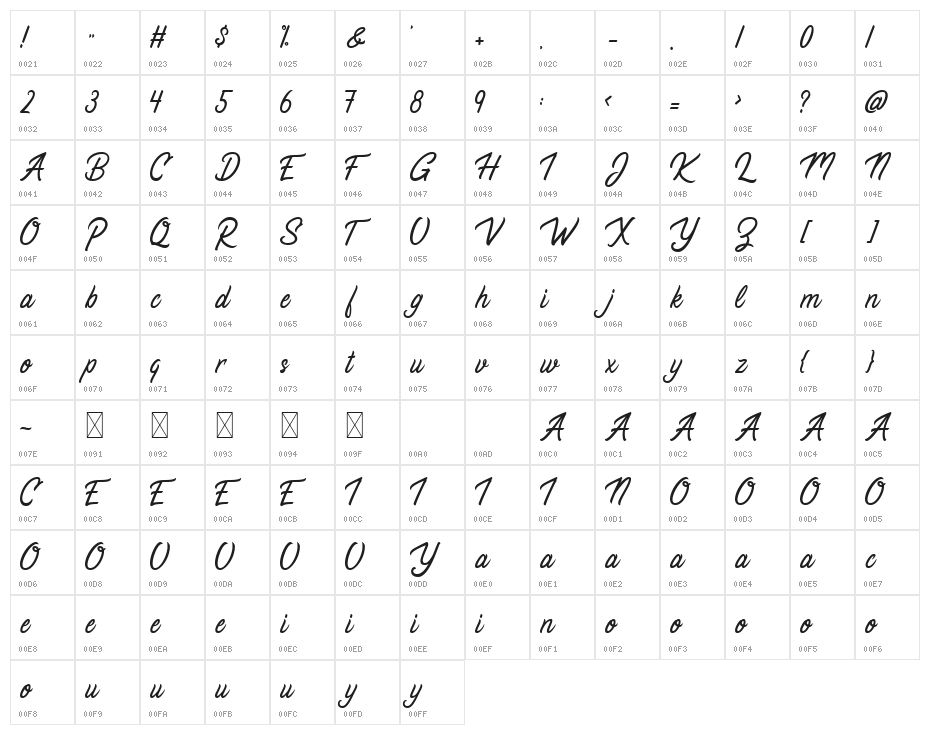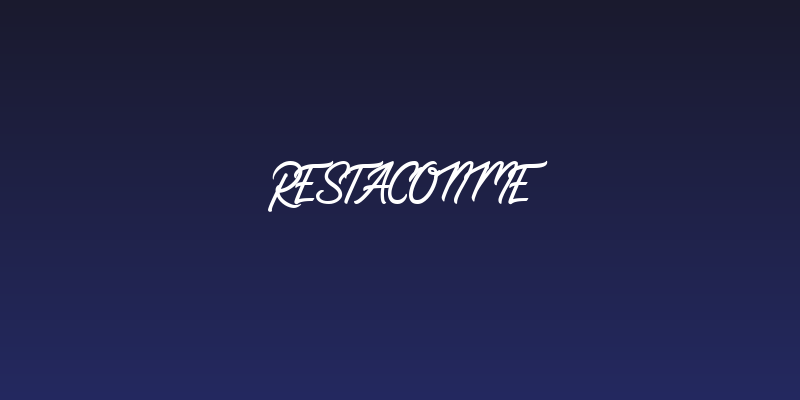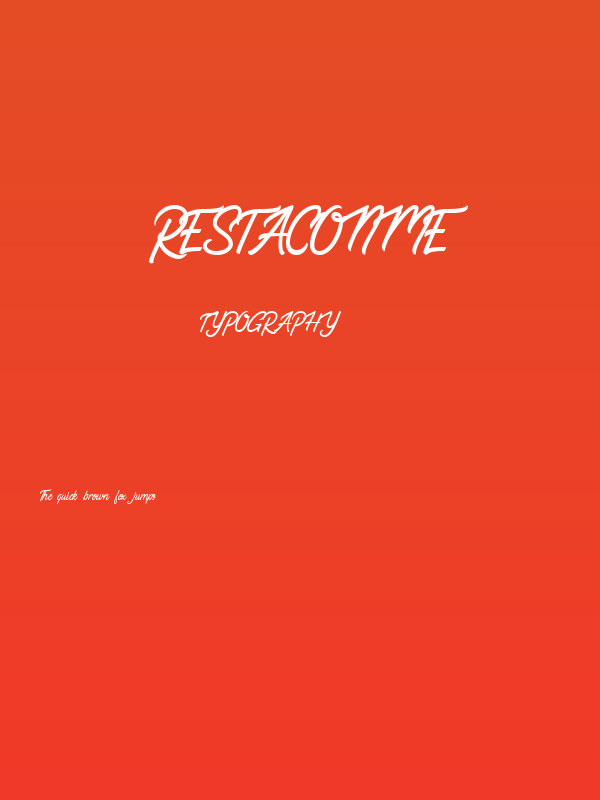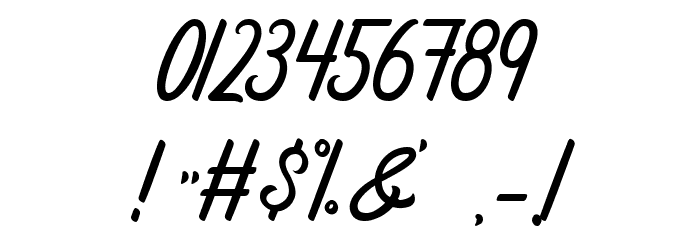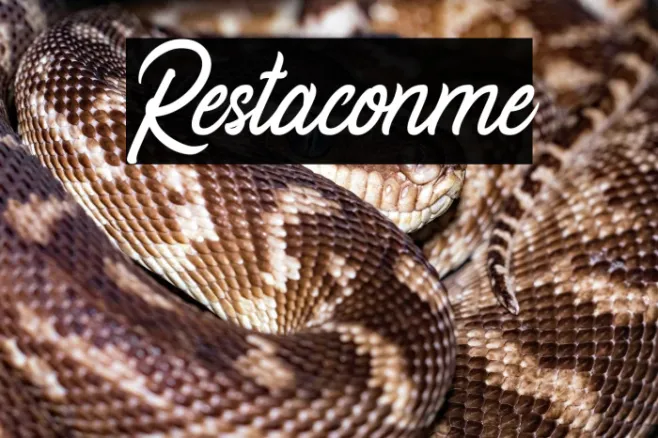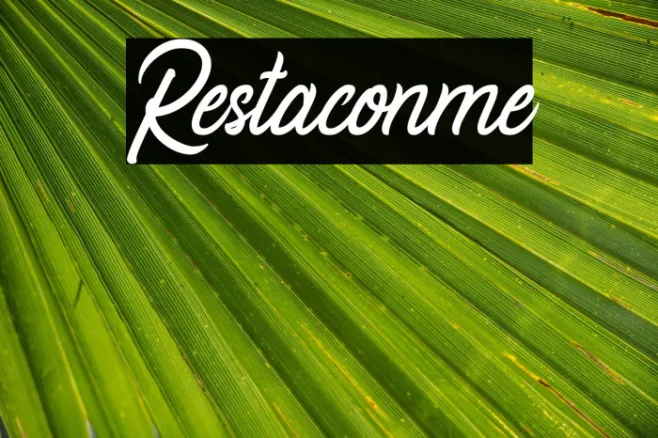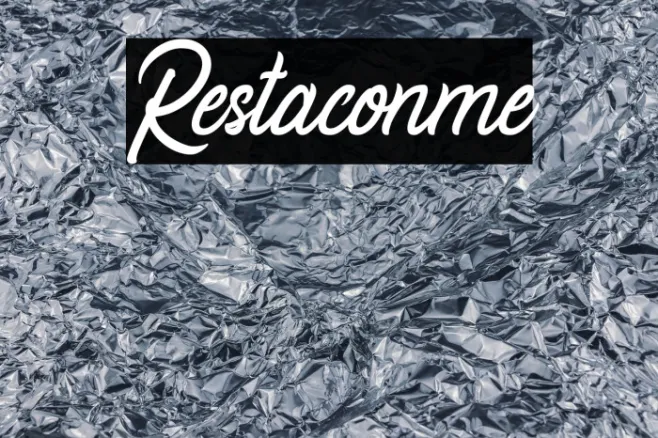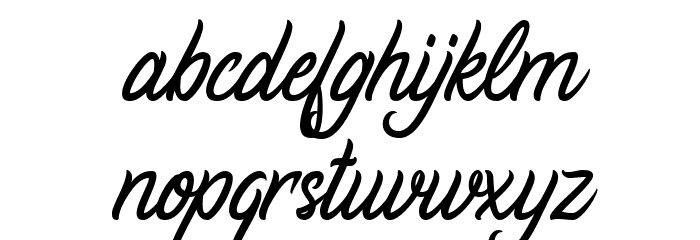
Restaconme Font
Restaconme Description
This font exudes a classic and elegant script style, characterized by its flowing, cursive letters that mimic the fluidity of handwriting. The uppercase letters are bold and sweeping, with generous loops and curves that add a touch of sophistication. The lowercase letters maintain a consistent slant, enhancing the script's natural flow and readability. Numbers and special characters are designed to complement the overall aesthetic, ensuring a cohesive look across all text elements. The font's graceful appearance makes it suitable for projects that require a personal or formal touch.